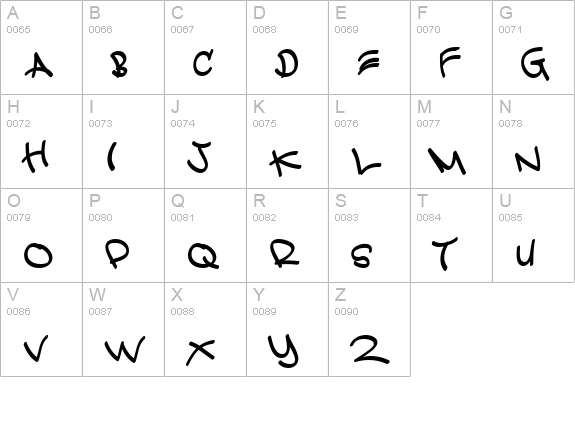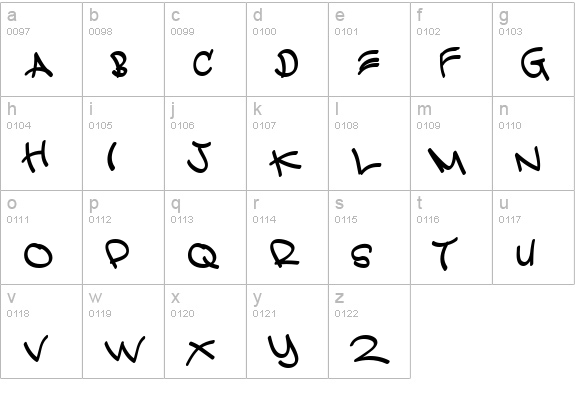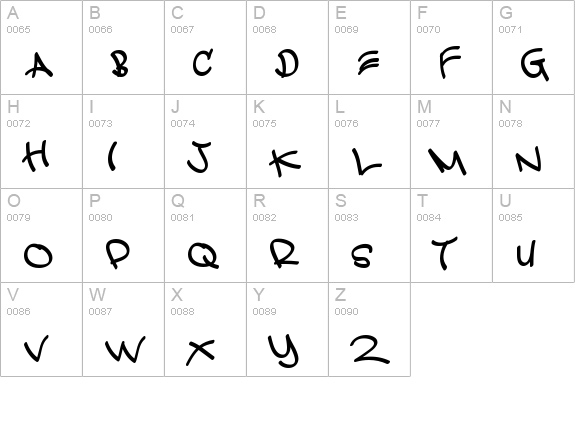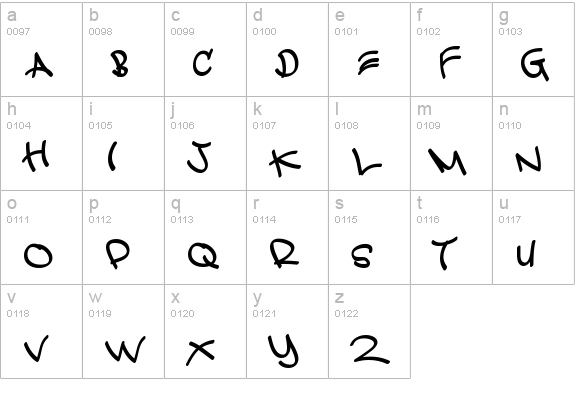
basm fat Font Details
Basm Fat Font is a striking and bold typeface that commands attention with its thick, heavy strokes and unique design. This font exudes a sense of strength and power, making it perfect for headlines, titles, and other prominent text. What sets Basm Fat Font apart is its distinctive style that combines modern simplicity with a touch of retro charm. The smooth curves and sharp edges of each letter create a visually captivating look that will make your designs stand out. Best of all, Basm Fat Font is available for free download at FontsMarket.com, allowing you to add this eye-catching font to your collection without any cost. Whether you're working on a poster, logo, website, or any other creative project, Basm Fat Font is sure to make a bold statement and leave a lasting impression.